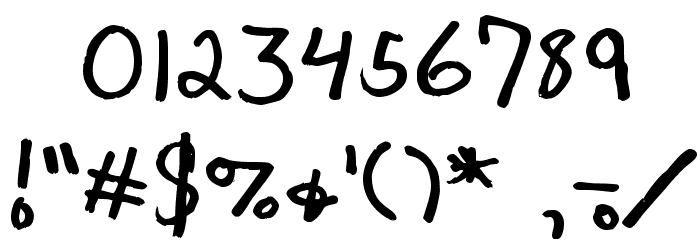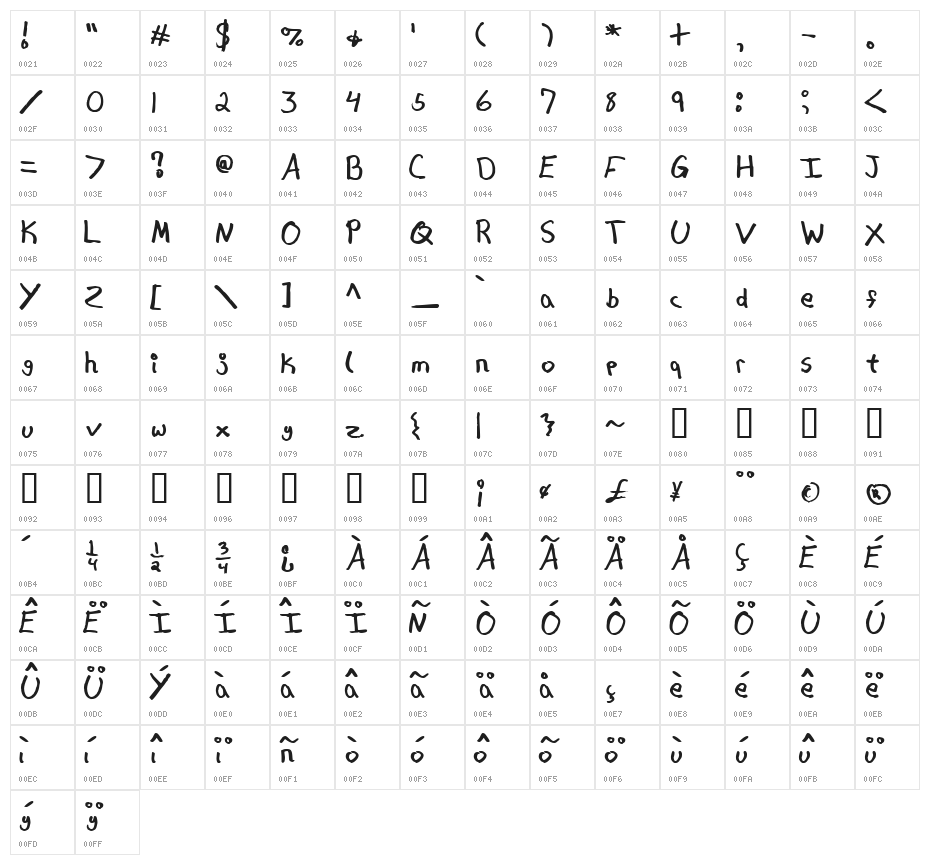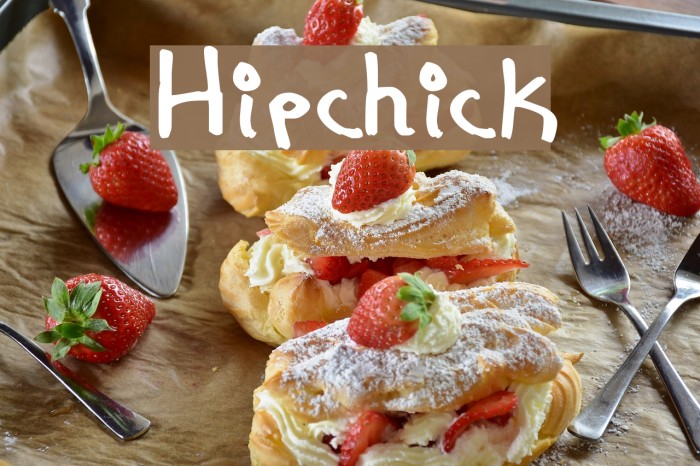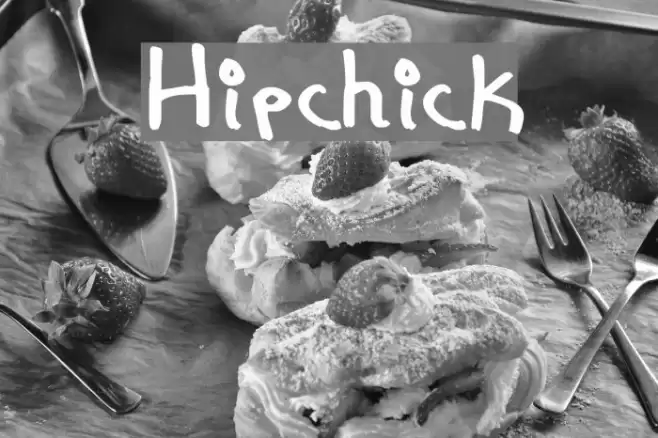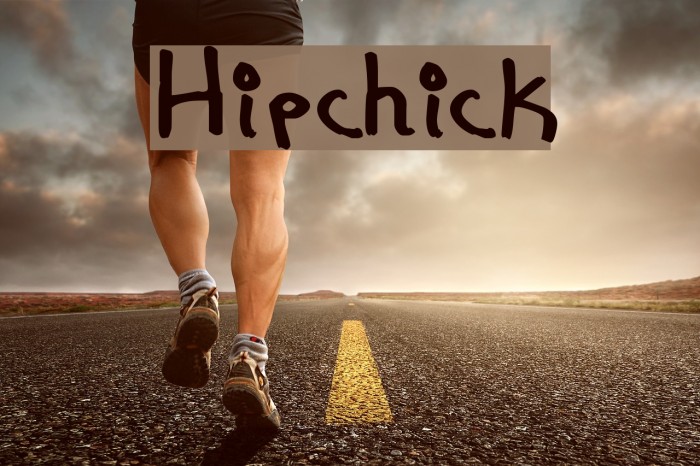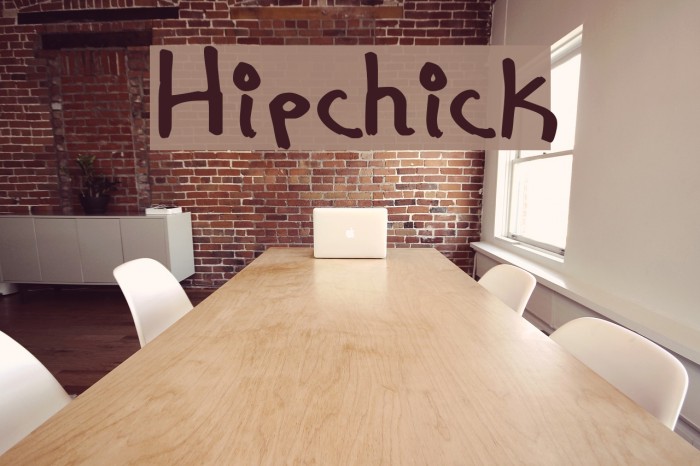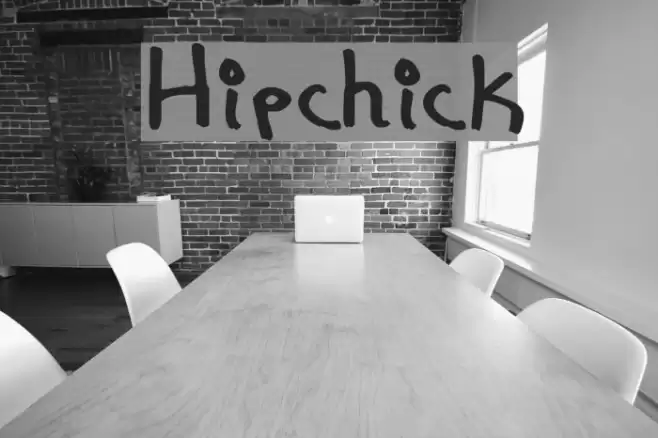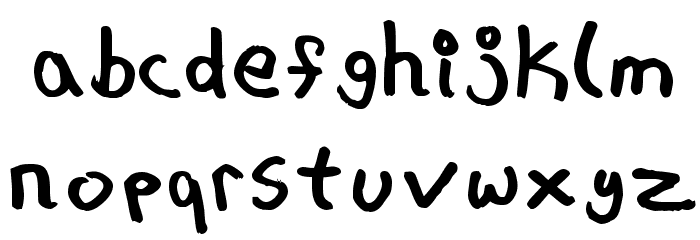
Hipchick Font
Hipchick Description
This font features a playful and informal handwritten style, characterized by its uneven strokes and casual appearance. The letters have a whimsical quality, with varying heights and widths that give it a lively and dynamic feel. The uppercase letters are bold and prominent, while the lowercase letters maintain a consistent flow. The numbers are quirky and match the overall playful theme. Special characters are included, adding versatility for creative projects. This font is perfect for designs that require a personal touch, such as greeting cards, invitations, or children's book illustrations.
| Use Case | Headlines, Creative projects, Informal designs |
| Proposed Projects | Ideal for greeting cards, invitations, children's books, and creative projects needing a personal touch. |